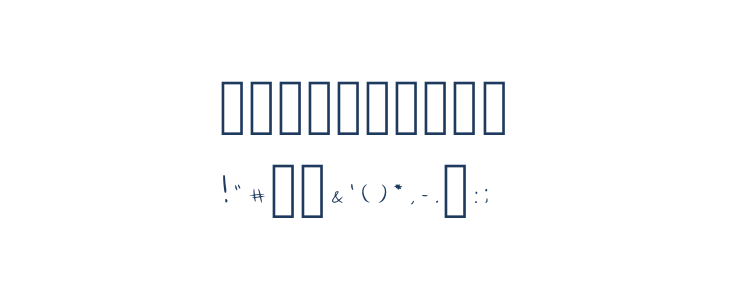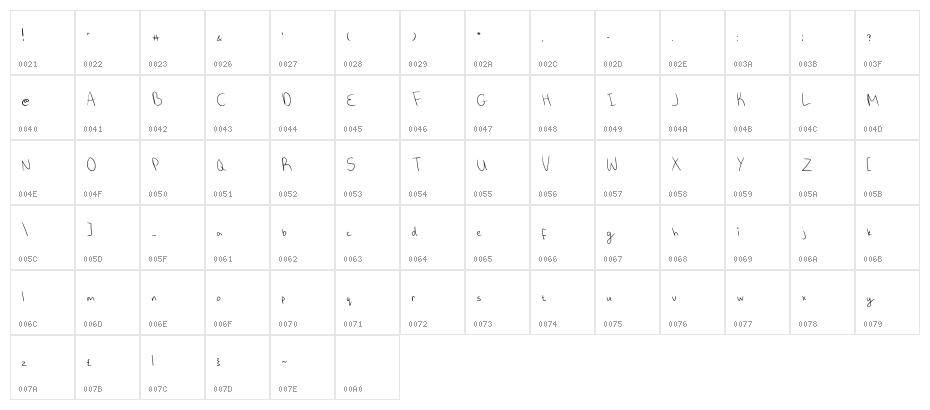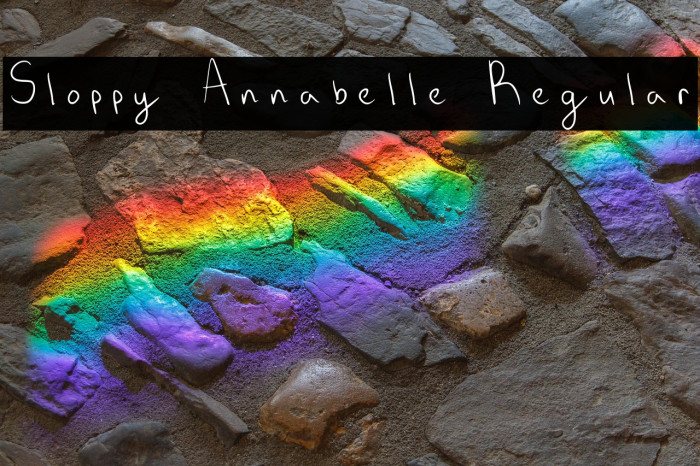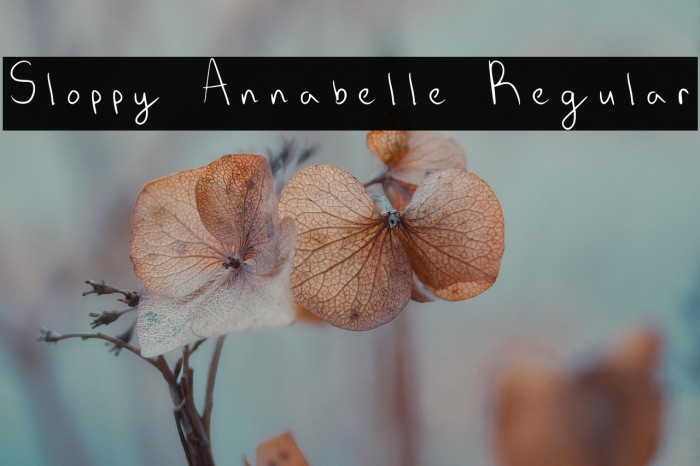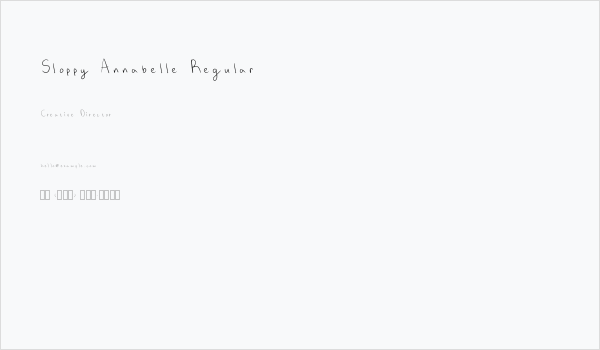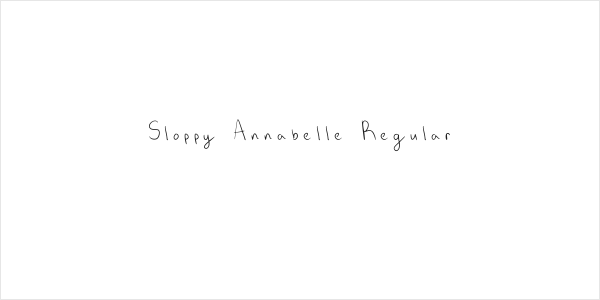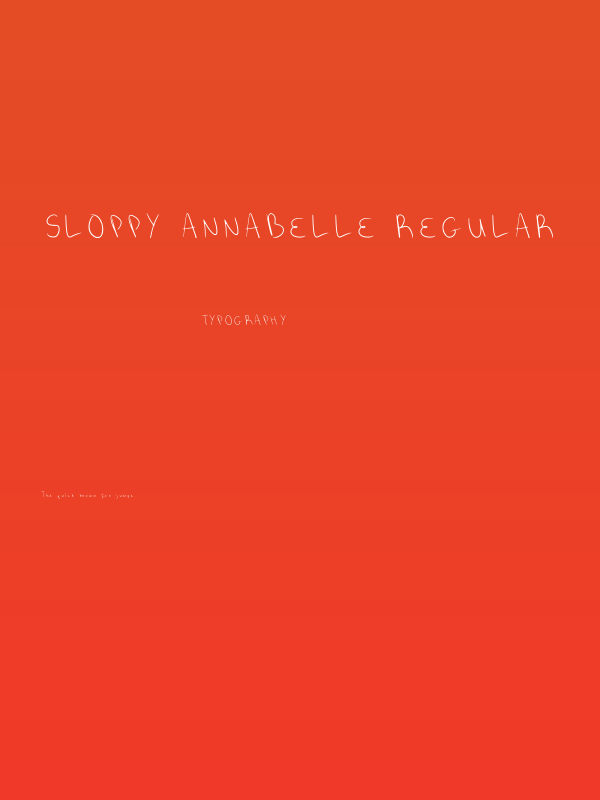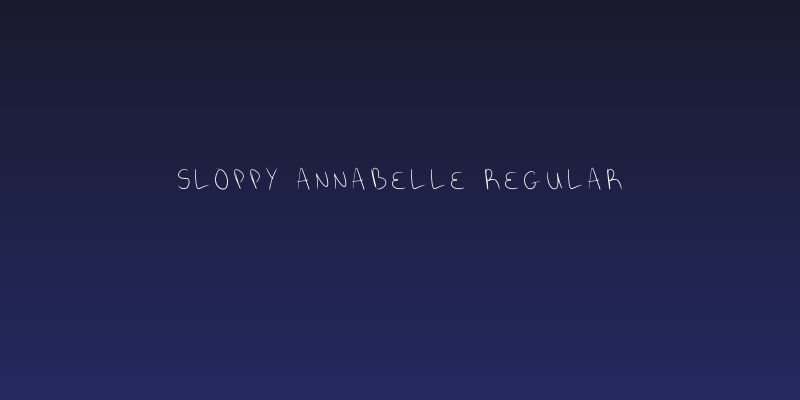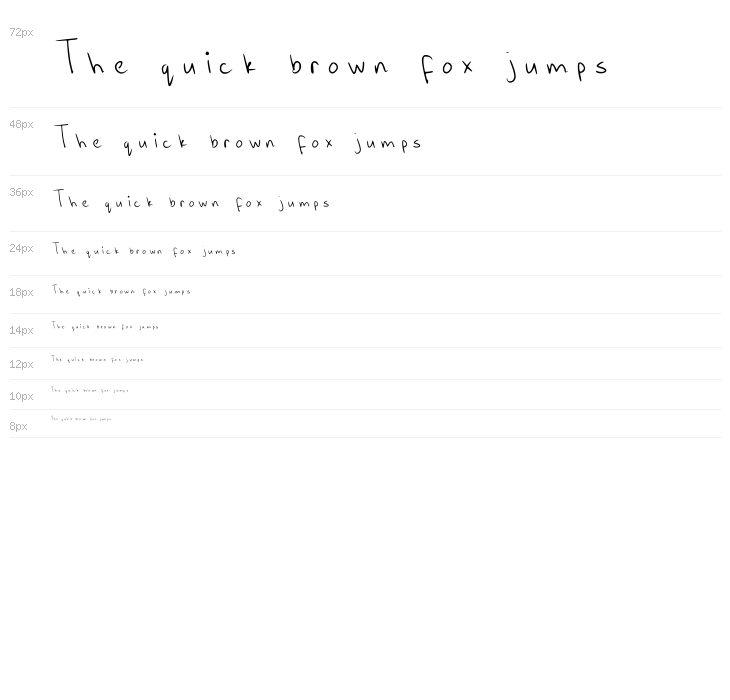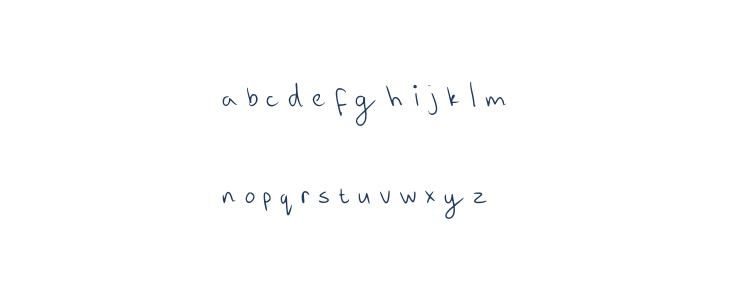
Sloppy Annabelle Regular Font
Sloppy Annabelle Regular Description
This font features a playful and whimsical handwritten style, characterized by its irregular strokes and casual appearance. The letters exhibit a slightly uneven baseline, giving it a relaxed and informal feel. The uppercase letters are tall and slender, while the lowercase letters maintain a consistent flow with a touch of quirkiness. The font includes a full set of uppercase and lowercase letters, numbers, and a variety of punctuation marks. Its unique charm makes it suitable for creative projects that require a personal touch.
| Use Case | Headlines, Logos, Informal text |
| Proposed Projects | Ideal for greeting cards, children's books, casual invitations, and personal branding. |